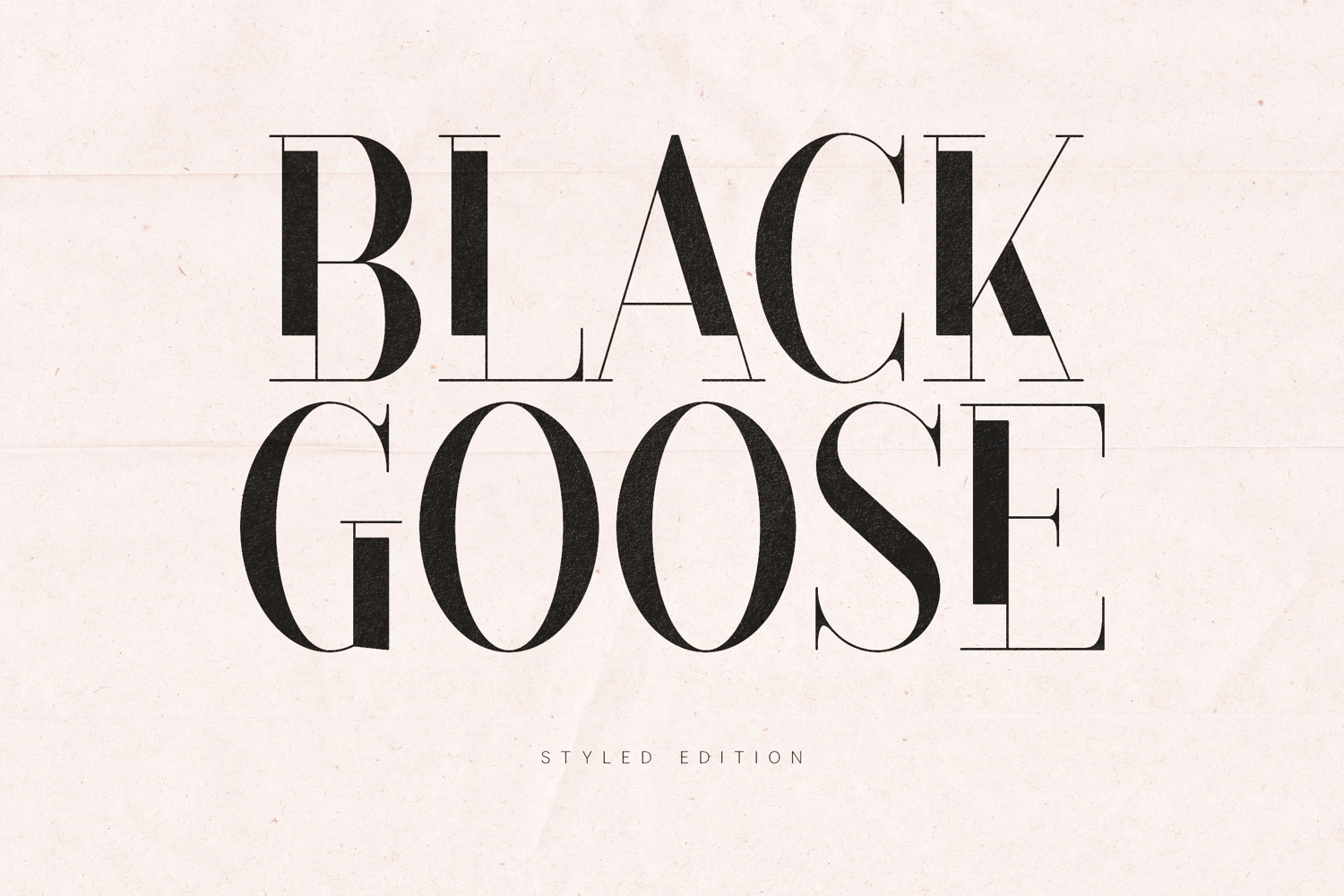
Black Goose Modern Editorial Serif Font
Black Goose is a refined modern serif typeface designed for elegant editorial layouts, branding, and high-end typography. Combining classic serif structure with contemporary proportions, the font delivers a strong visual presence while maintaining excellent readability.
The letterforms feature elegant contrast, sharp terminals, and balanced spacing, giving the typeface a sophisticated editorial personality. This makes Black Goose perfect for fashion magazines, luxury branding, packaging design, and modern logo creation.
With its stylish and confident look, the typeface performs beautifully in headlines, titles, posters, and branding systems where strong typography is essential. At the same time, its clean structure allows it to work well in creative layouts and digital design projects.
Black Goose includes uppercase and lowercase characters, numbers, punctuation, and multilingual language support, making it suitable for international design work.
Whether used for branding, editorial design, posters, packaging, social media graphics, or logo creation, Black Goose provides designers with a versatile and elegant serif font.